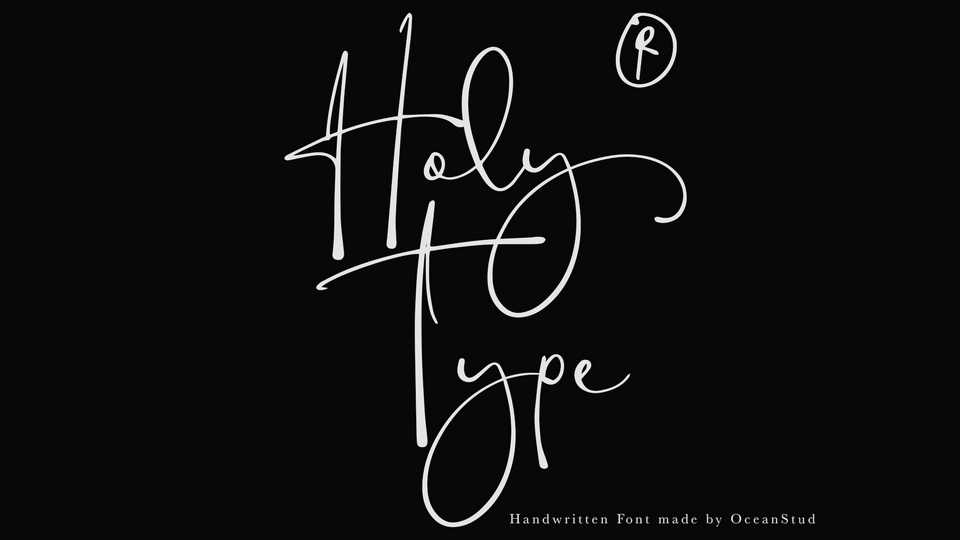
Download Holy Type font, a handwritten typeface inspired and dedicated or consecrated to God or a religious typeface, meaningfull of type.
Designer: The Ocean Studio